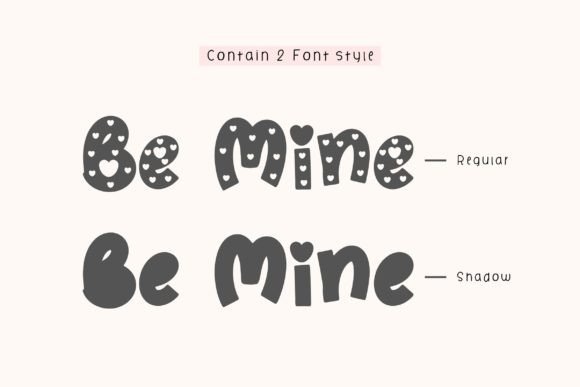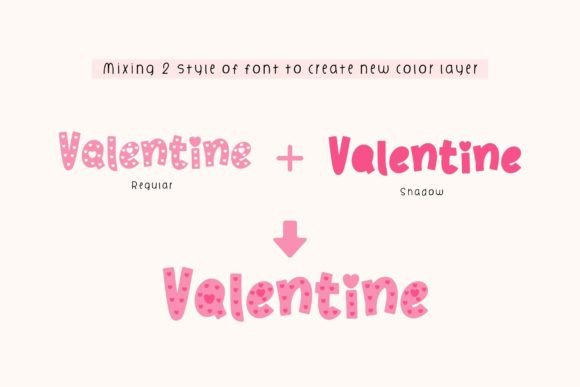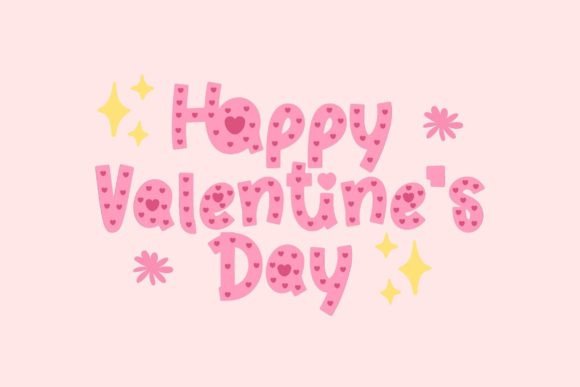
Be Mine Font
“Be Mine” a font that embodies the essence of cuteness and playfulness, beautifully intertwined with heart shapes to evoke feelings of love and charm, especially perfect for expressing affection on Valentine’s Day. This font goes beyond with its versatility, offering both a regular font and a shadow font, allowing you to create a variety of design compositions. Whether you’re working on eye-catching posters, charming shirts, captivating tote bags, heartwarming mugs, endearing stickers, memorable logos, engaging social media content, heart-felt quotes, or delightful wall art, “Be Mine” becomes the heart and soul of your creative expressions, turning each project into a celebration of love and creativity.